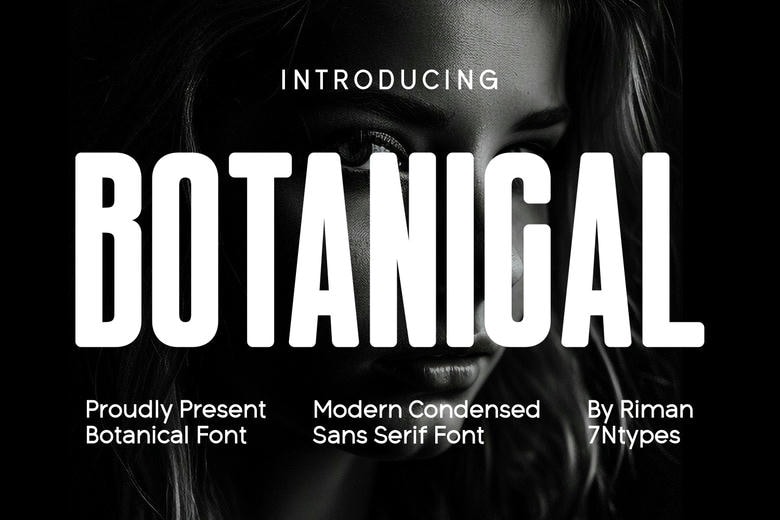
Botanical Font
Botanical is a modern sans-serif font with a tall, strong look. It stands out and works well for professional displays. Its clean lines and slight vertical contrast make it great for bold headlines and fashion branding.
Botanical gives your work a modern and timeless feel. It is easy to use with design software and printing tools since it comes in both OTF and TTF formats. Its fresh style and cheerful energy add a positive touch to creative projects like Cricut crafts, T-shirt designs, children’s books, greeting cards, and stickers.
Botanical Sans Serif Font